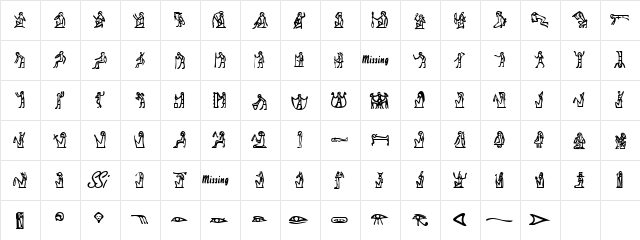
Cartouche1SSK Regular
Design Context for Cartouche1SSK Typeface
Cartouche1SSK is a composed and adaptable typeface that performs quietly and consistently across a wide range of design contexts.